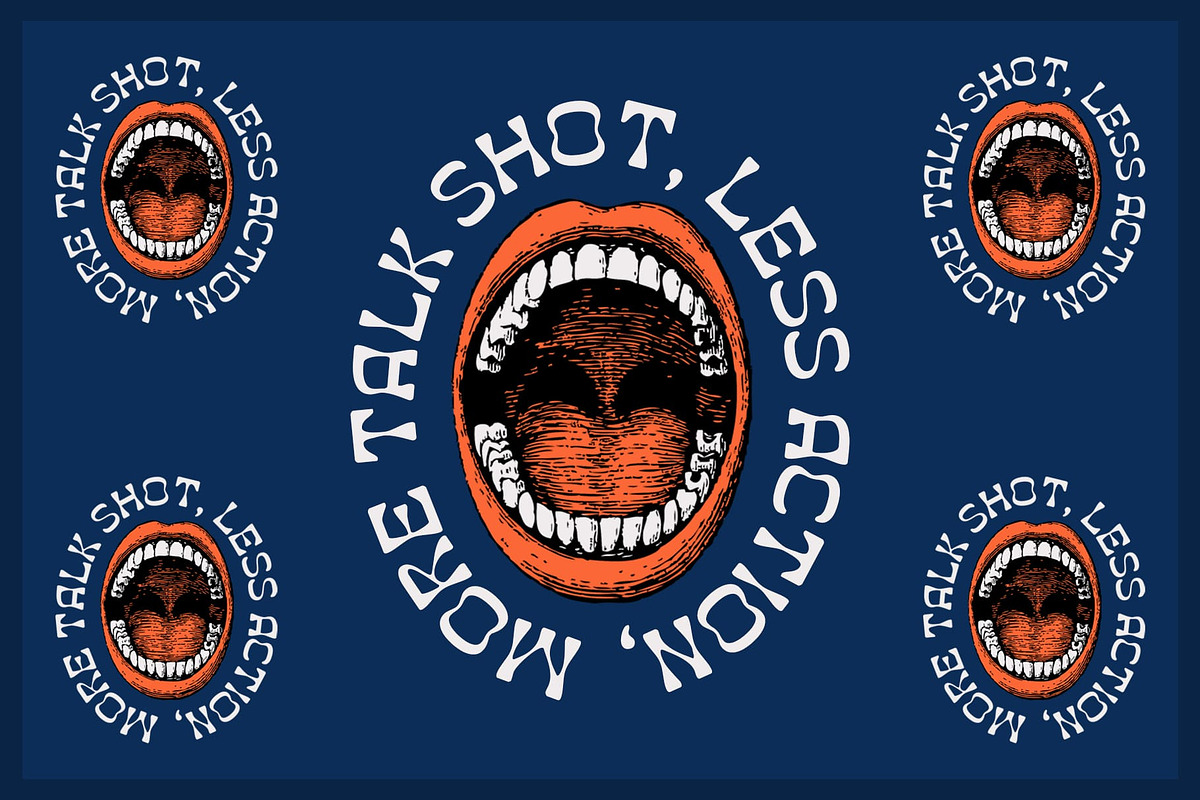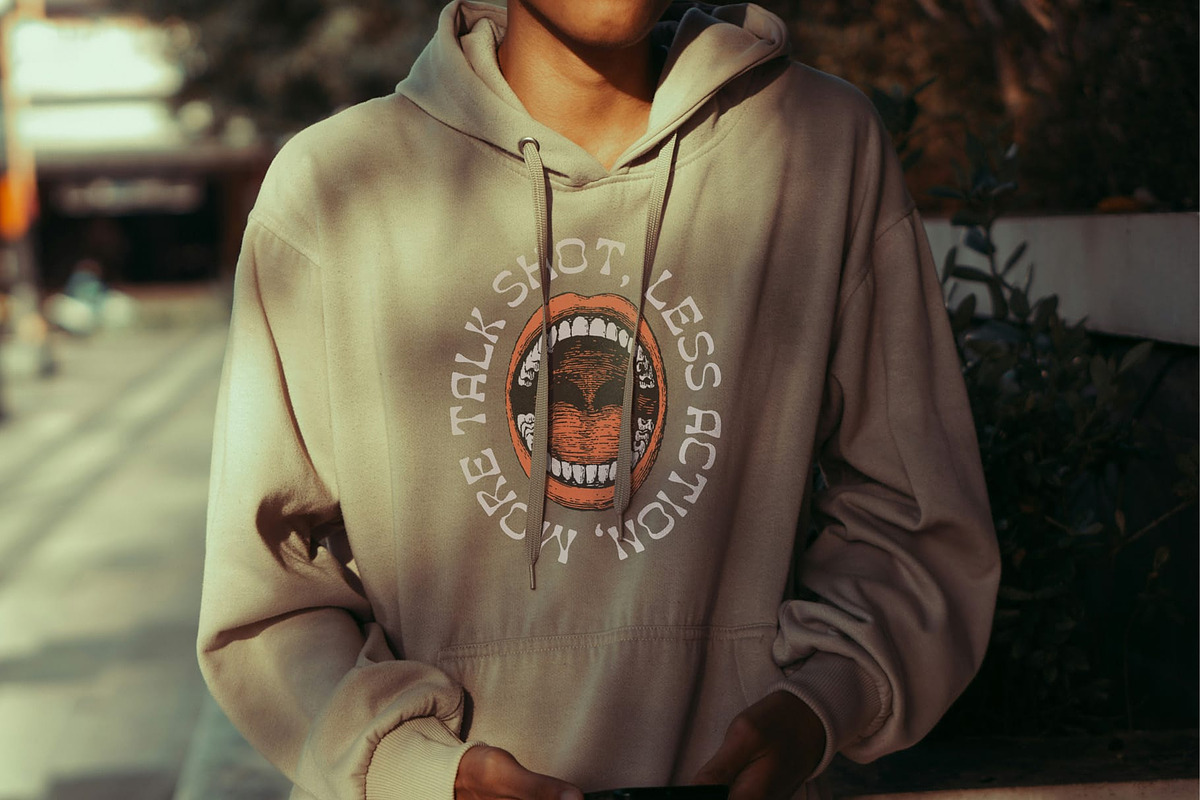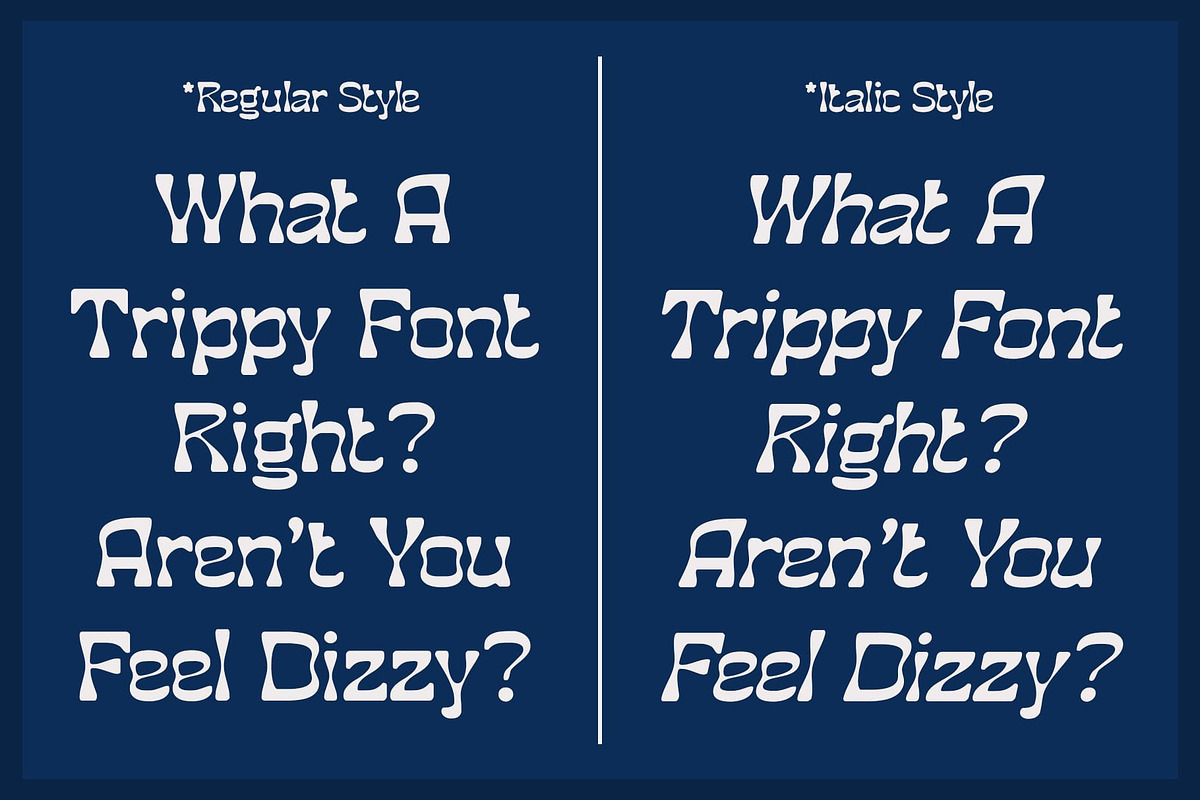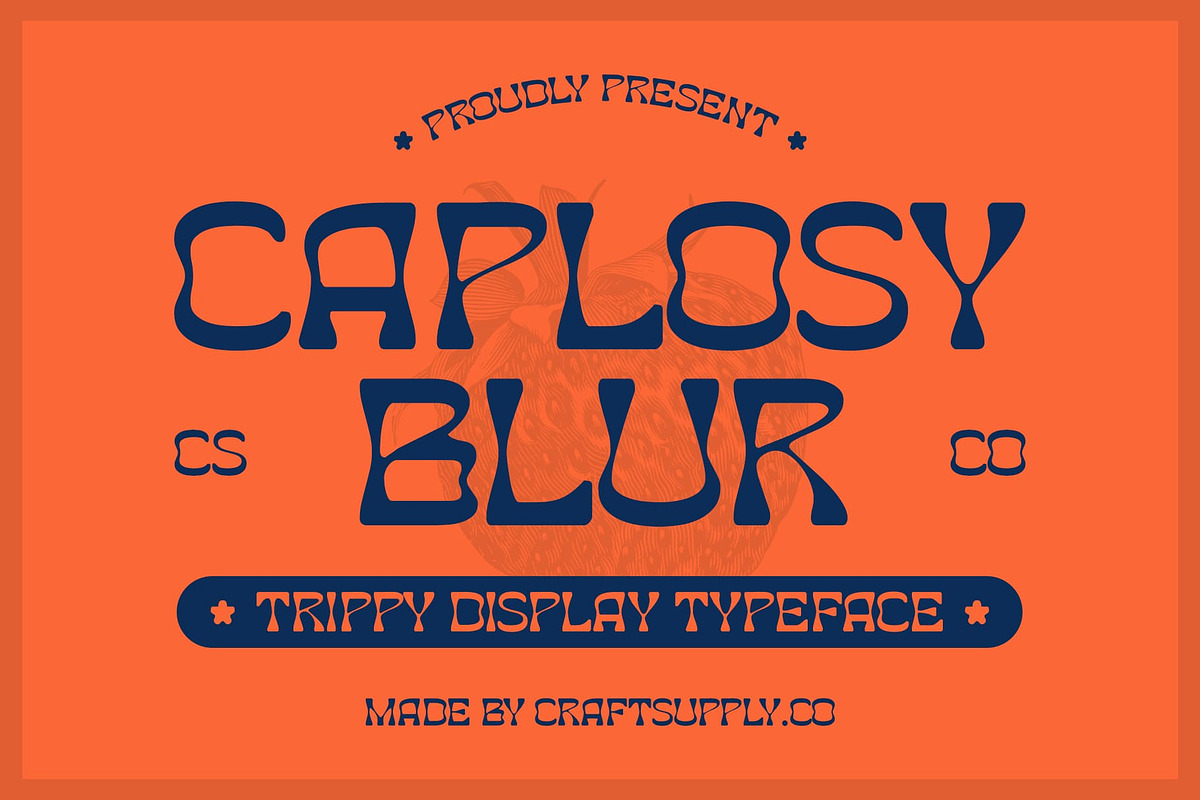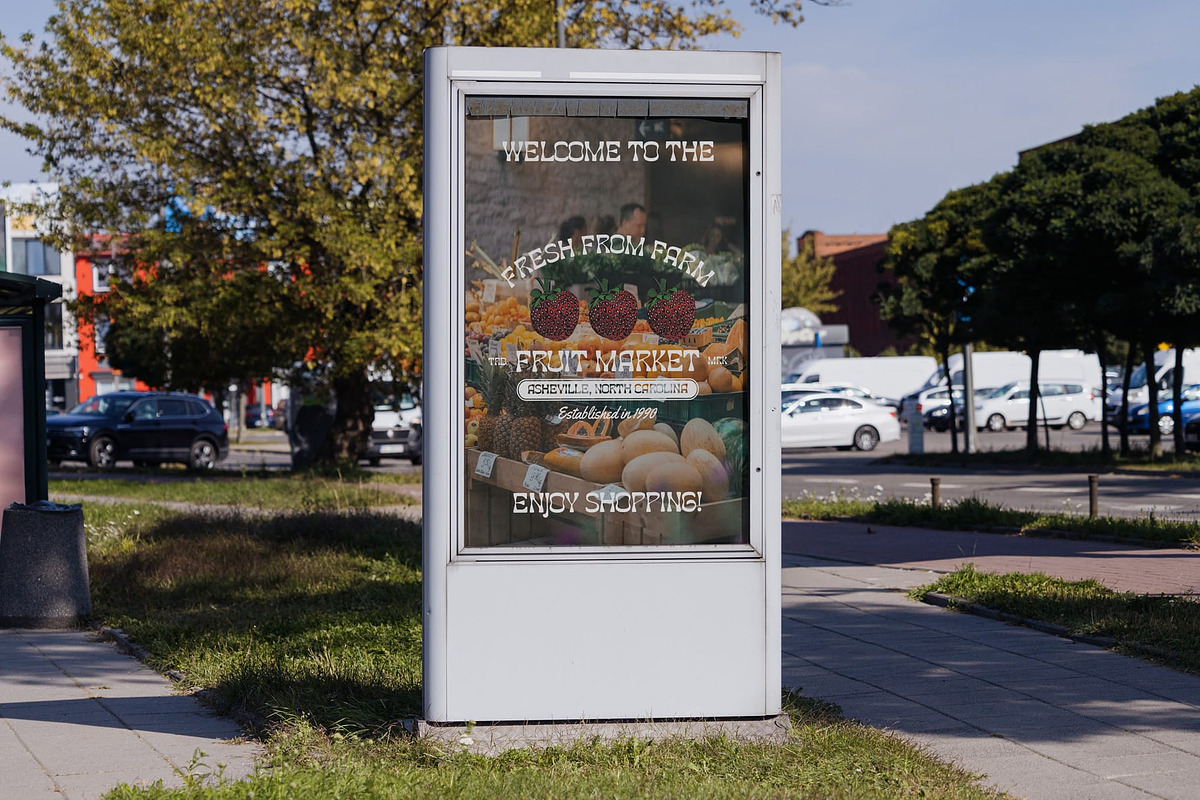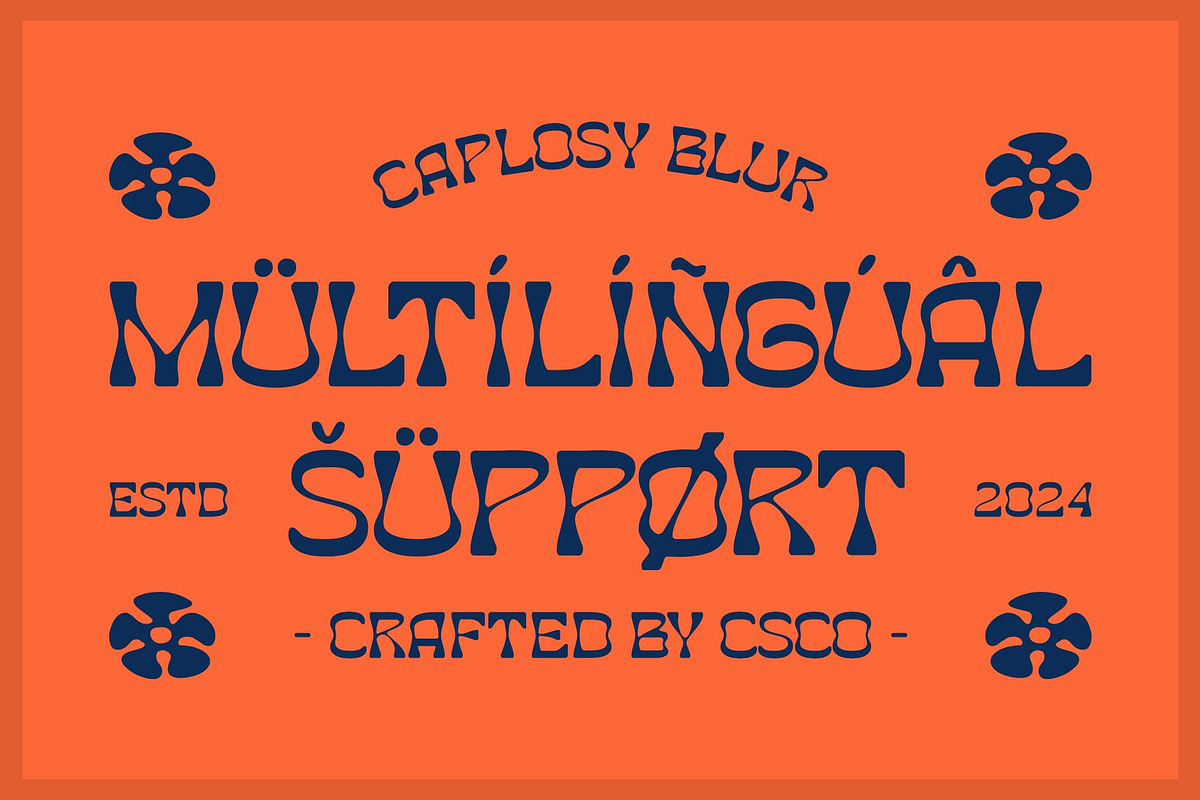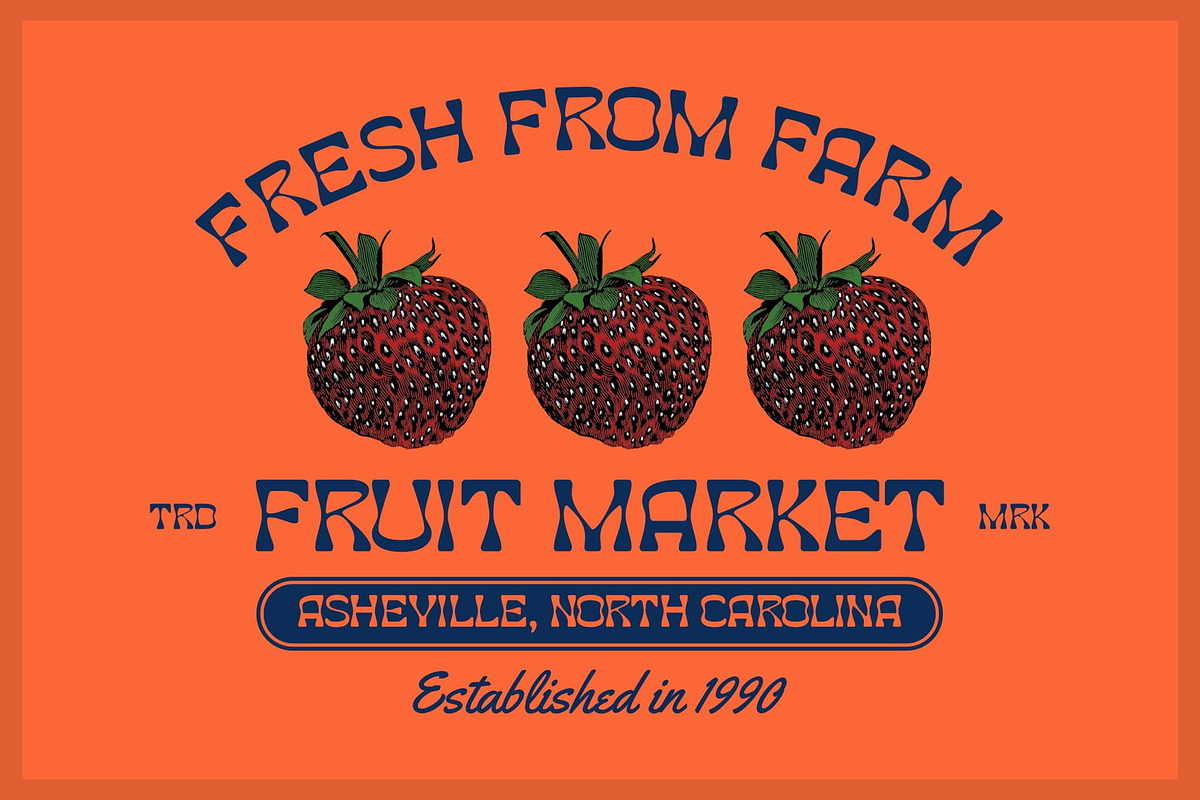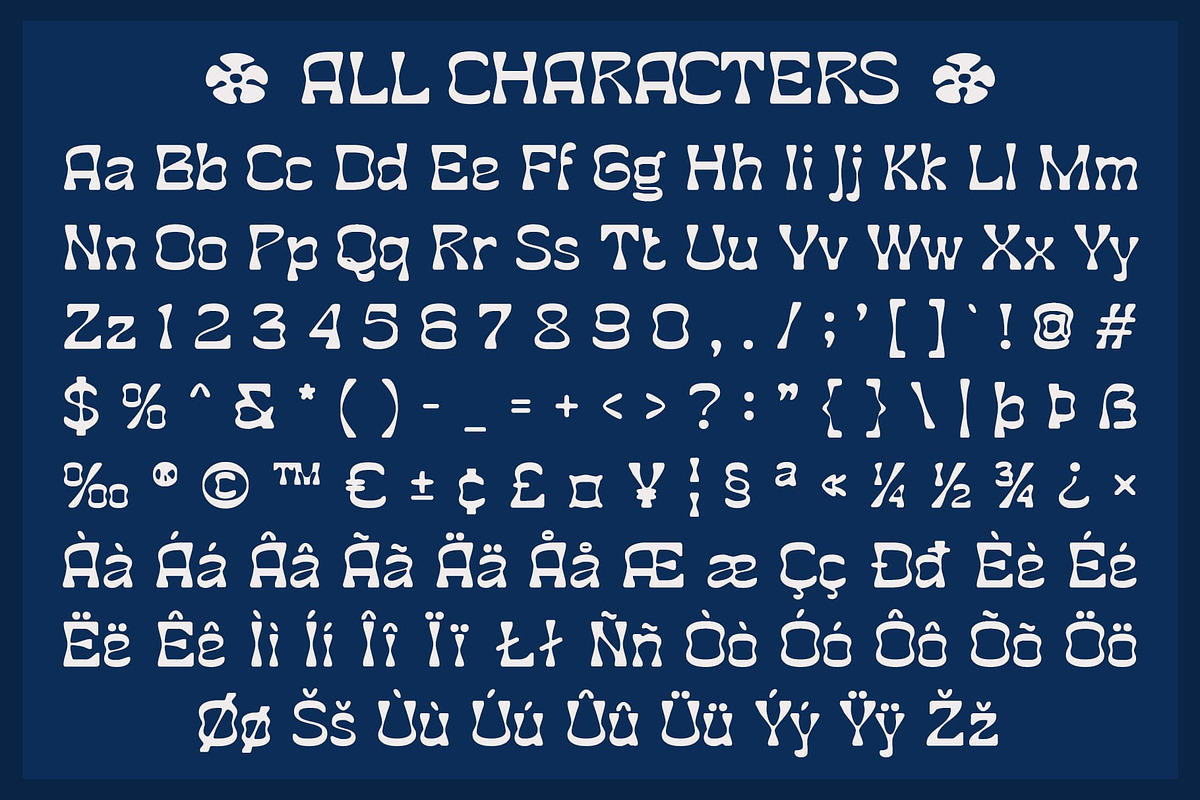
Caplosy Blur
Caplosy Blur Font: Psychedelic Playfulness with a Retro Twist
Psychedelic Display Font with a Funky, Retro Vibe Caplosy Blur is a psychedelic display font that fuses retro charm with a playful, wavy design. The bold, swirling letterforms evoke a sense of movement and energy, while the blur effect adds an artistic, dreamy dimension. This combination brings a nostalgic flair to modern designs, making it perfect for projects that aim to capture attention with a unique and fun visual style.
Dynamic and Playful Design The swirling, distorted shapes of Caplosy Blur create a fluid, dynamic appearance, reminiscent of the vibrant and bold typography of the ’60s and ’70s. Paired with the blur effect, the font takes on an almost otherworldly quality, adding a sense of whimsy and playfulness. This font is ideal for designs that want to stand out with a fun and energetic vibe, while still holding onto the retro aesthetics that evoke a sense of nostalgia.
Perfect for Music Posters and Event Promotions Caplosy Blur is the ultimate choice for creative projects that need to grab attention and convey a lively, vibrant feel. Its eye-catching, bold design works exceptionally well on music posters, event promotions, and branding projects looking to capture the essence of fun and excitement. The blur effect amplifies its visual impact, making it a great choice for any project that needs a playful and artistic touch.
- Caplosy Blur Regular
- Caplosy Blur Italic